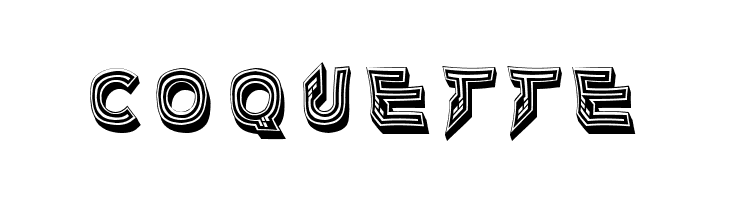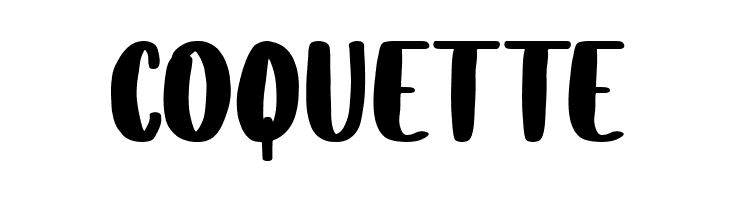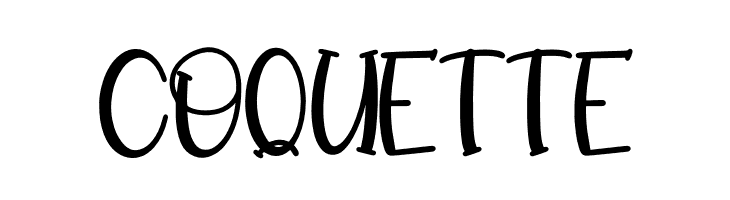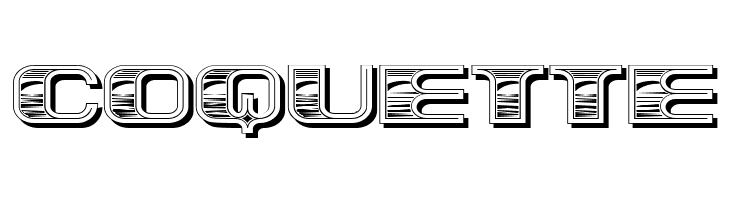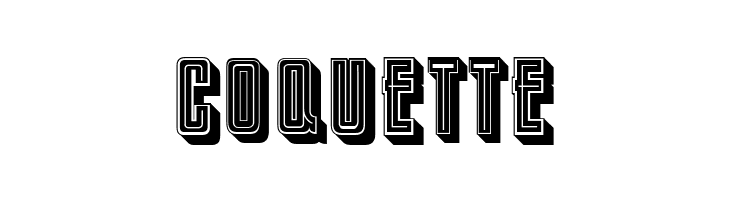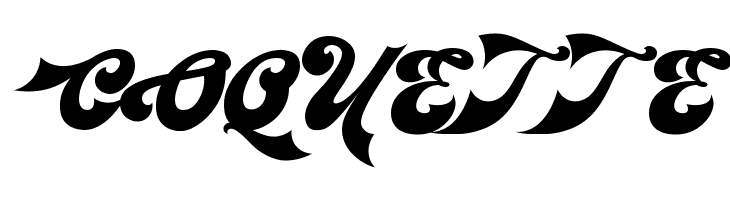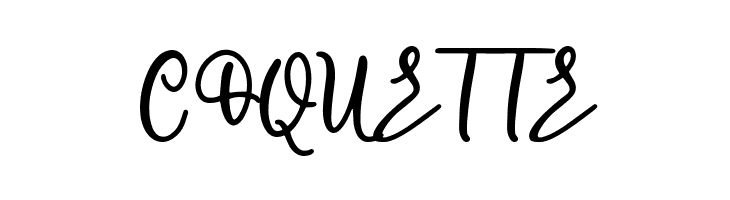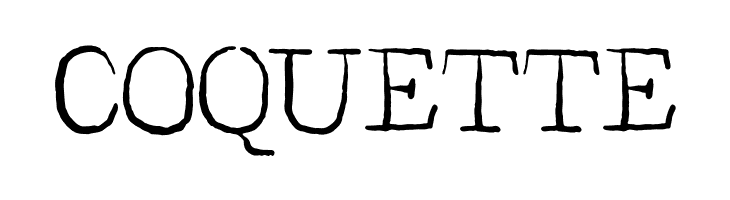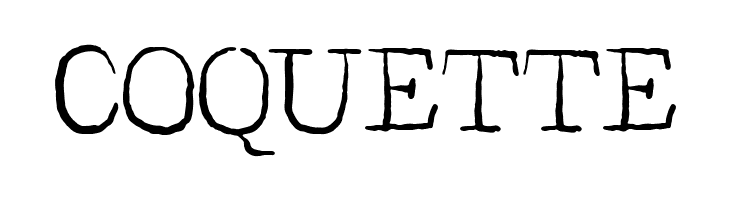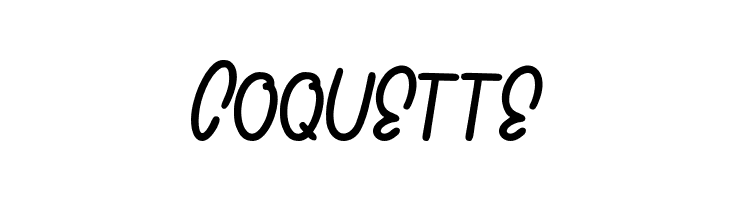
A bold slab serif font with strong, block-like serifs and a modern yet timeless design.
A modern, dot-matrix style font resembling LED displays.
A dot matrix font with a digital, modern appearance, ideal for LED displays.
A bold, playful font with rounded edges and a friendly style.
A rugged, distressed font with a vintage, hand-drawn style.
A vintage, hand-drawn font with a textured, rustic appearance.
A bold, retro 3D font with a dotted texture and shadow effect.
A bold, modern sans-serif font with clean, geometric lines.
A bold, hand-drawn font with a rough, distressed texture.
A bold, textured font with a vintage, distressed stamp-like appearance.
A playful, handwritten font with dynamic curves and varying stroke widths.
A playful, bold font with rounded, hand-drawn characters.
A playful, handwritten font with tall, narrow letters and a casual style.
A bold, playful handwritten font with thick strokes and rounded edges.
A playful, handwritten script font with smooth, connected characters.
A playful and elegant script font with flowing, cursive letters.
A lively and expressive script font with playful, cursive strokes.
A playful, casual handwritten font with smooth curves and consistent strokes.
A bold, handwritten font with a playful and casual style.
A bold, playful font with a quirky, hand-drawn aesthetic.
A bold, energetic handwritten font with playful loops and curves.
A graceful and flowing script font with elegant, continuous strokes.
A fluid, cursive handwritten font with elegant, interconnected letters.
A playful, handwritten-style font with dynamic, cursive-like strokes.
A geometric, high-contrast font with sharp angles and a modern aesthetic.
A modern, geometric font with sharp angles and high contrast.
An elegant, flowing script font with a sophisticated italic style.
A playful, handwritten script font with fluid, connected characters.
A bold, three-dimensional decorative font with strong outlines and geometric structure.
A delicate, elegant handwritten font with flowing lines and whimsical charm.
An elegant and whimsical font with decorative swirls and curls.
A bold, dynamic script font with sweeping curves and dramatic flourishes.
A flowing, elegant cursive font with smooth, continuous strokes.
A bold, decorative font with a three-dimensional, layered design.
A bold, geometric font with a three-dimensional, futuristic style.